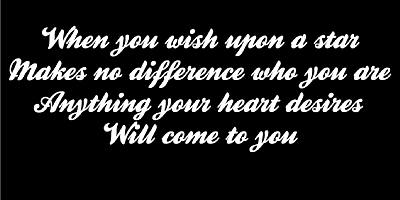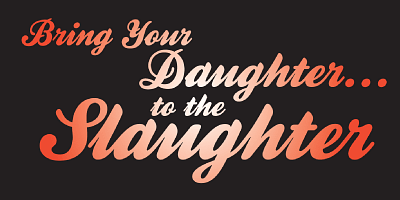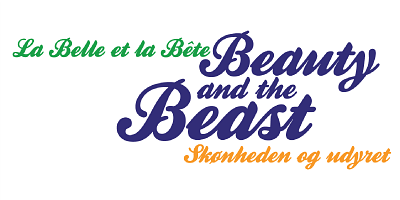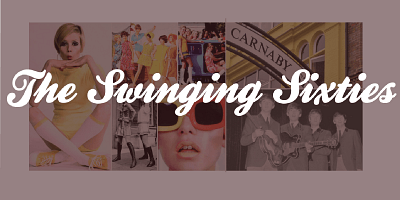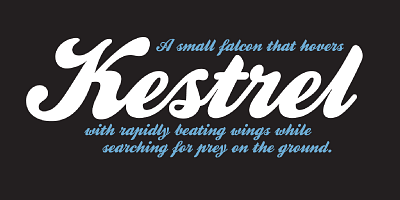
Originally designed in 1985 and released by Letraset for dry transfer Lettering, Kestrel has, until now, never been digitized. The face now has been completely re-drawn and digitized for all formats. It is a heavy formal script similar in form to Commercial Script.
Alan Meeks